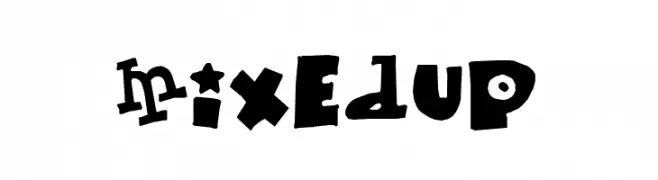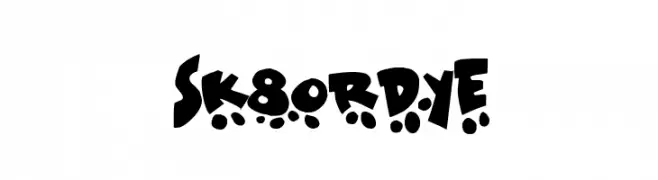
A playful, bold font with irregular, whimsical letterforms.
A bold, playful font with a graffiti-like, urban style.
A bold, playful font with a 3D shadow effect, perfect for eye-catching designs.
A playful, bubbly font with thick, rounded shapes and a whimsical style.